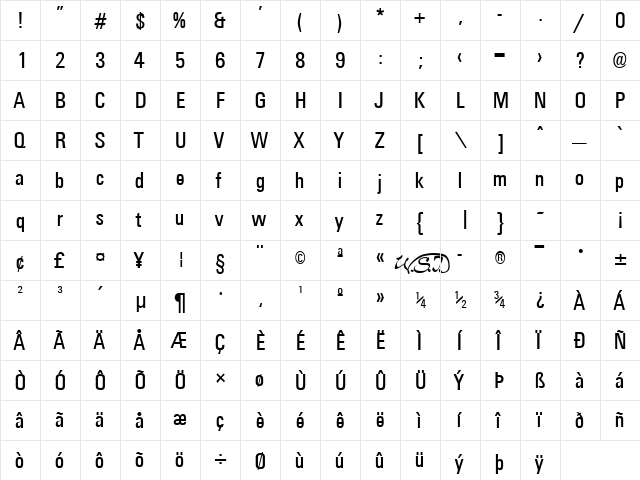
Universal Condensed Regular
Design Context for Universal Condensed Typeface
Universal Condensed takes a measured approach to typography — its balanced proportions and neutral character make it a reliable workhorse for both digital and print work. Its narrow stance lets it pack a punch even in space-constrained designs.
Pro Tip: Use Universal Condensed in both headline and body roles to test its range before committing to a single application.